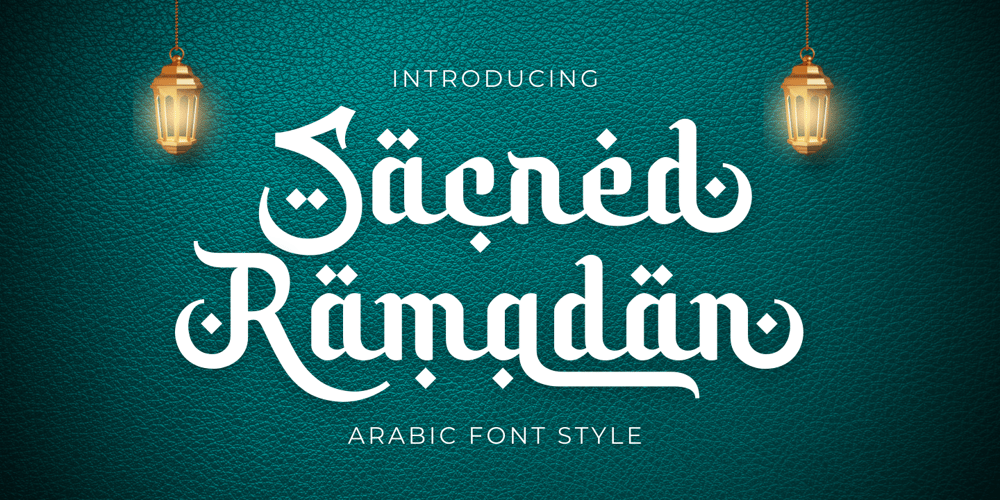
Sacred Ramadhan
Sacred Ramadhan font
Sacred Ramadhan Font Family was designed by Muhamad Yusron Billah and published by Sronstudio. Sacred Ramadhan contains 1 styles and family package options. Introducing “Sacred Ramdhan,” a bold Arabic script font designed to capture the essence of Ramadan. With its striking letterforms and intricate details, this font embodies the spirituality and significance of the holy month. Featuring alternate uppercase and lowercase characters, “Sacred Ramdhan” offers versatility and authenticity for your Ramadan-themed designs. Perfect for invitations, posters, or social media graphics, this font adds a touch of boldness and reverence to your projects, ensuring they shine with the spirit of Ramadan.Features: Alternates Letter Numeral & Punctuation PUA Encoded Multilingual support Simple Installation Work both on Mac and Windows Thank you very much 🙂